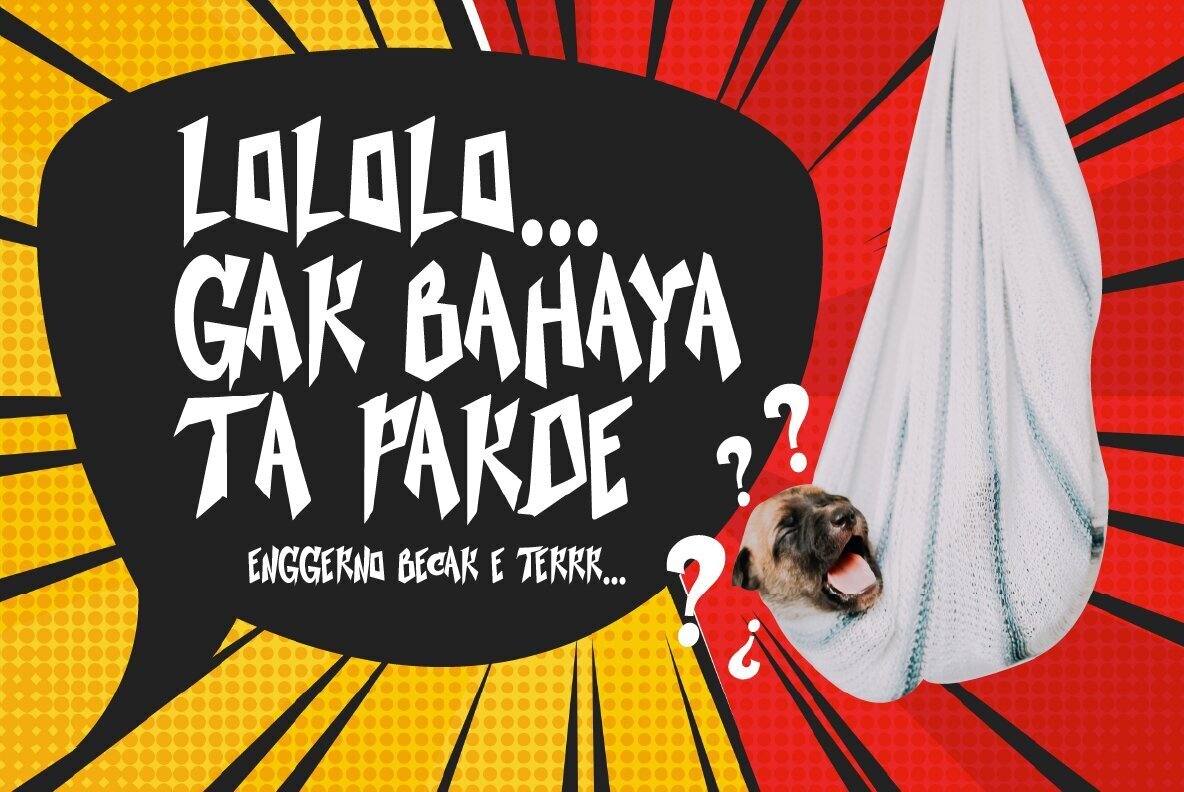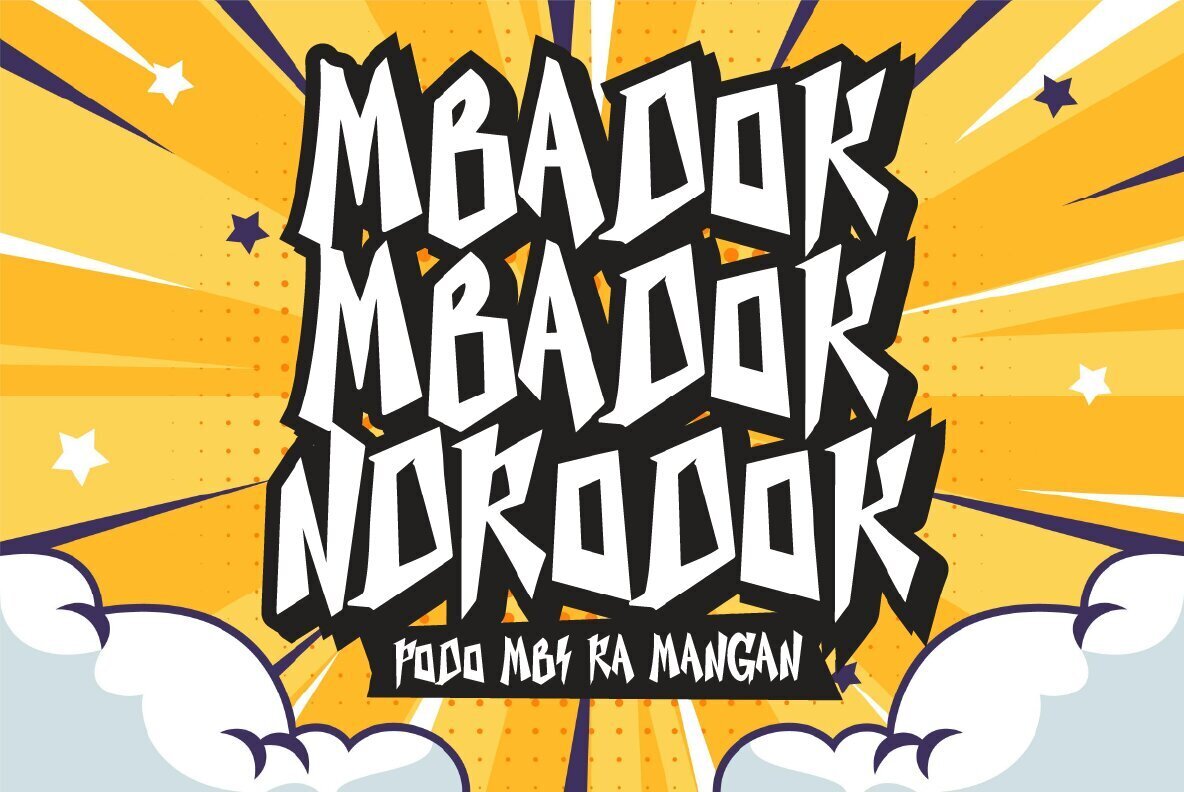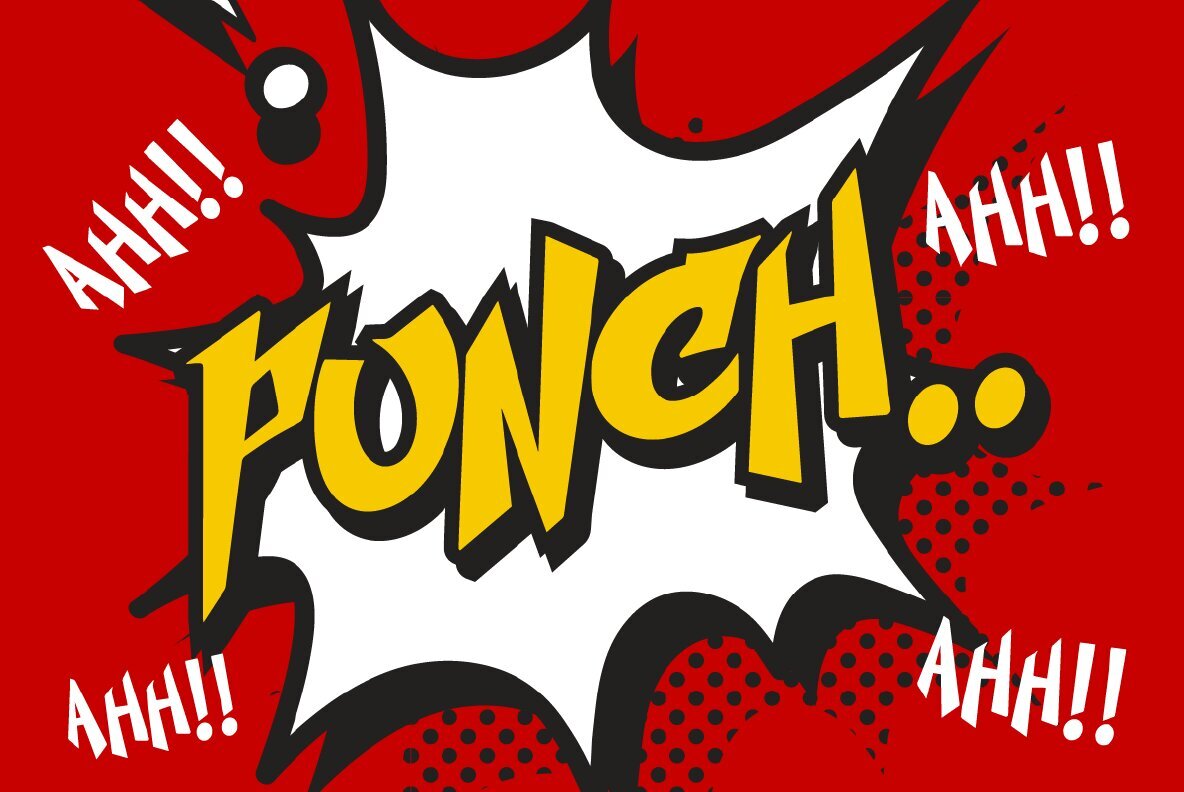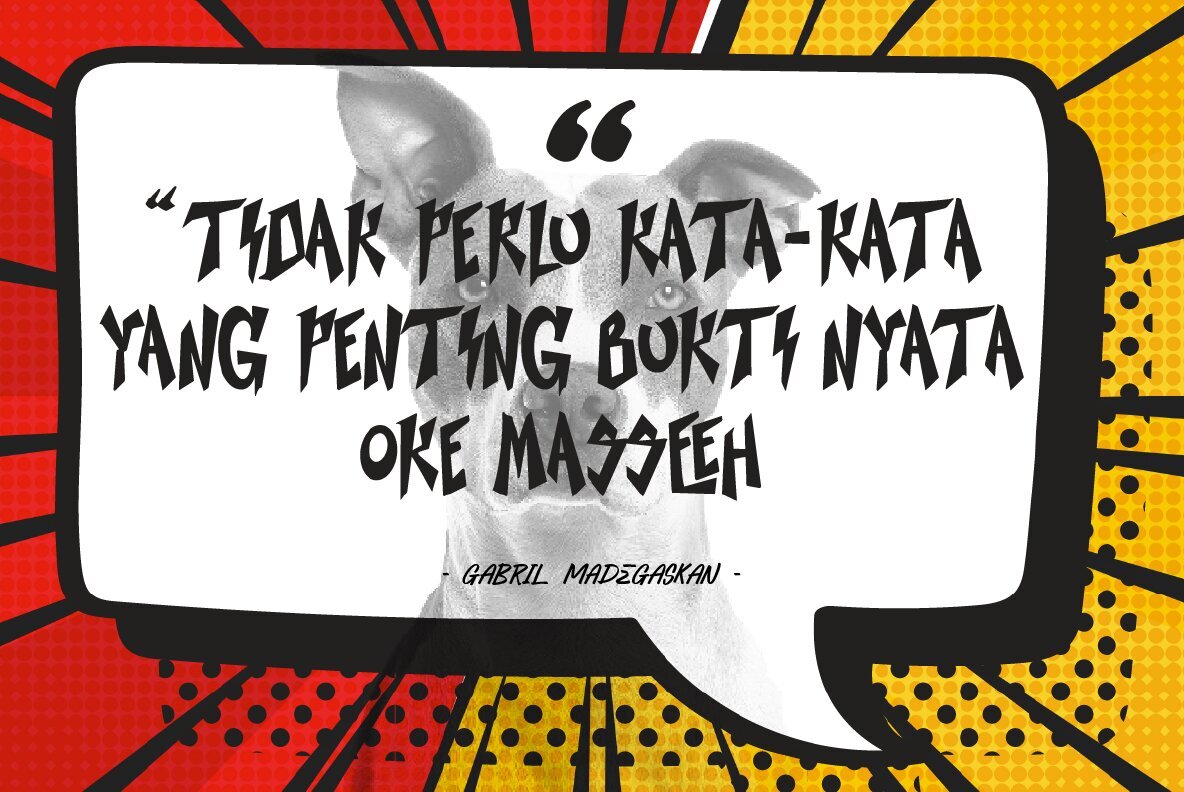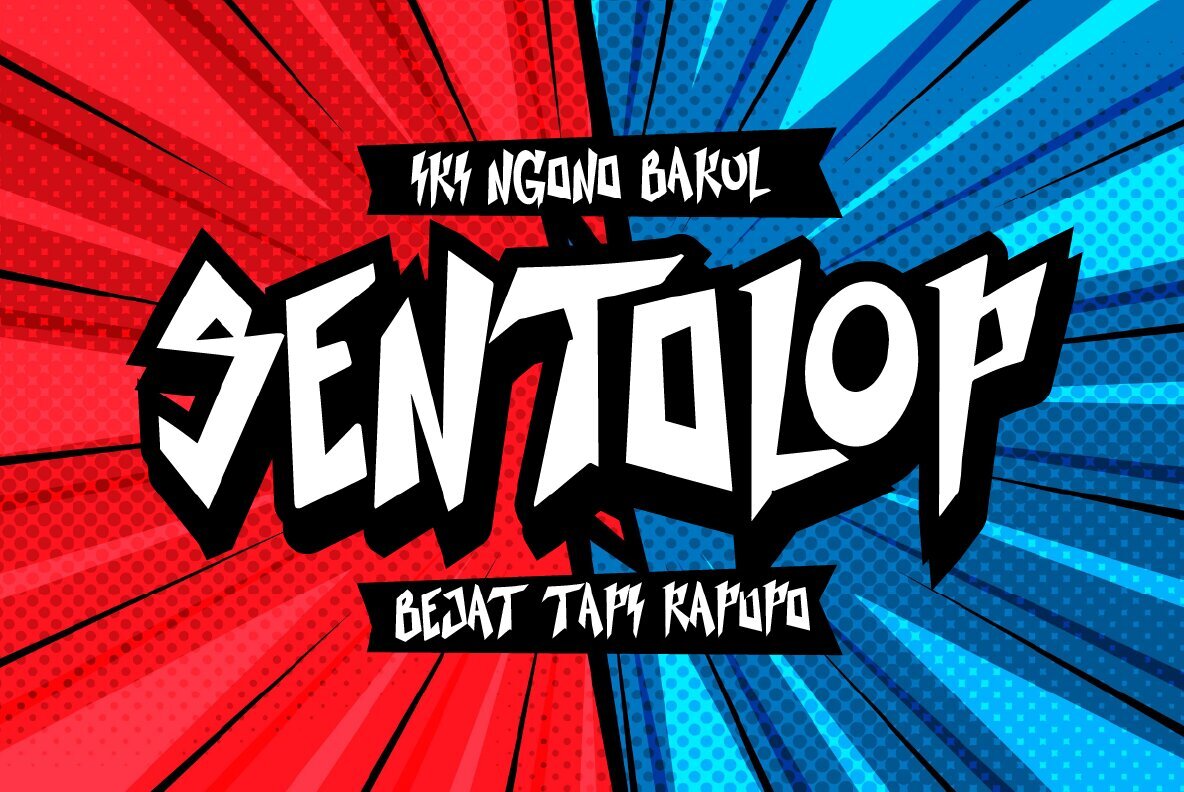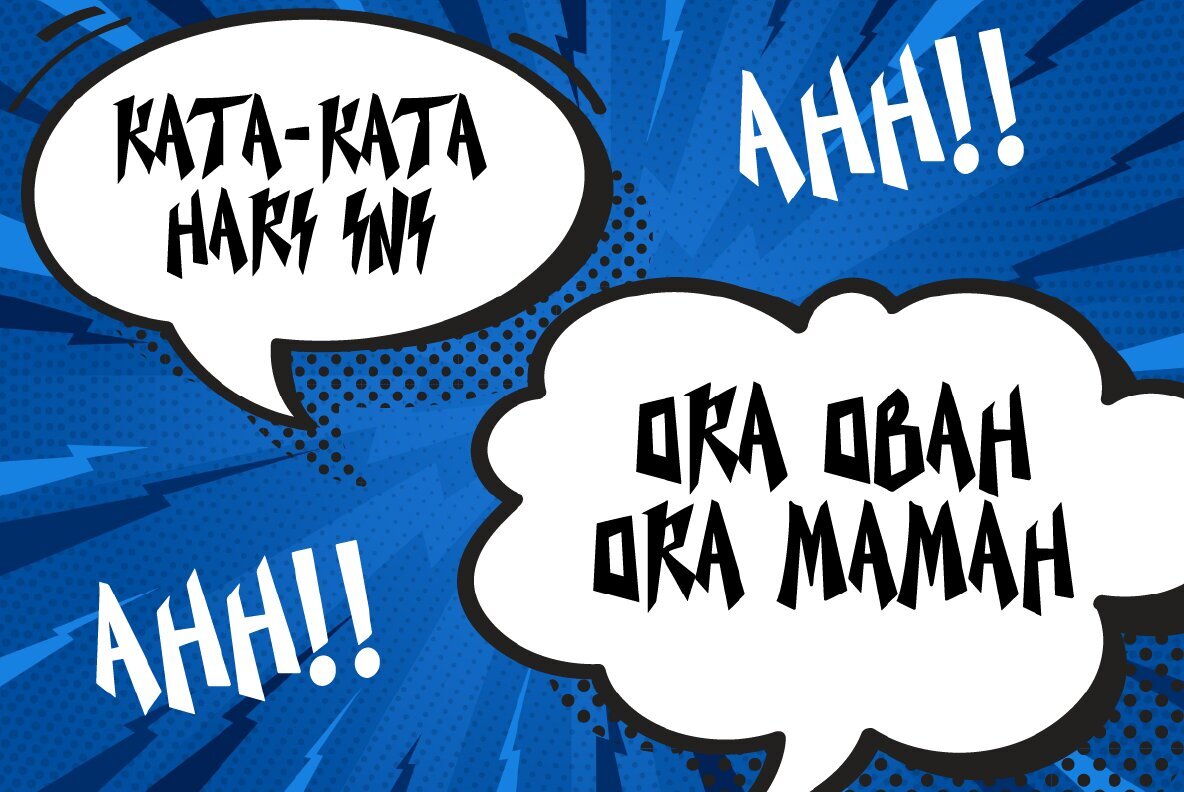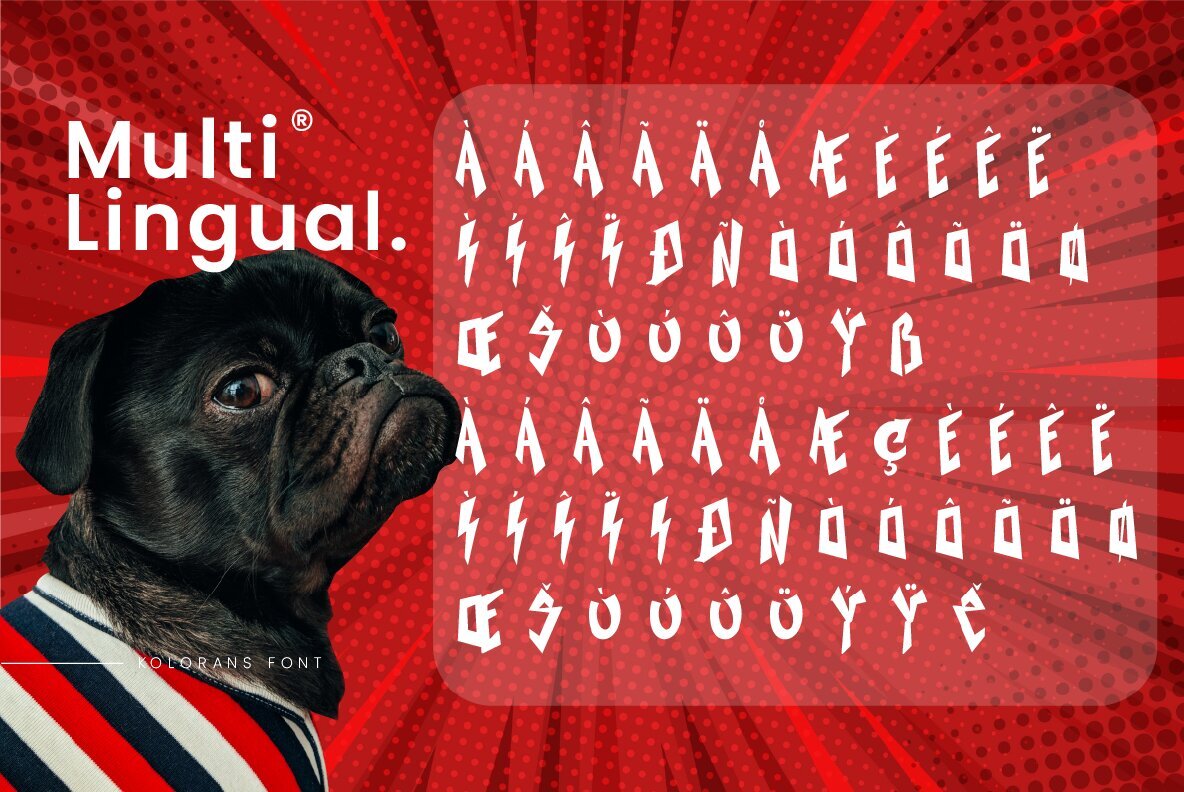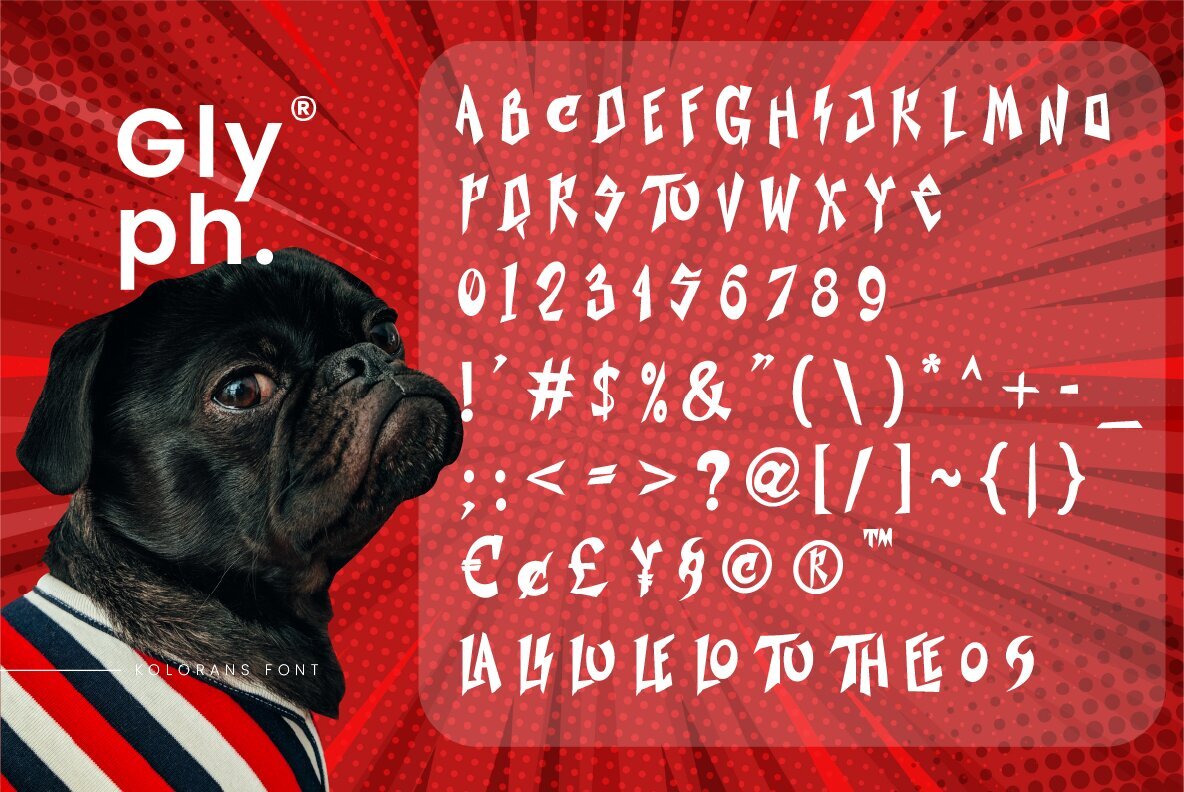
Kolorans Font
Kolorans Regular
Kolorans is a delightful comic display font designed to bring a sense of fun and humor to your projects. Its bold, exaggerated letterforms exude a cartoonish charm, making it perfect for creating a playful and approachable look. Ideal for comic books, titles, poster designs, and more, Kolorans adds a whimsical touch to any design. Please contact us if you have any questions. Enjoy crafting, and thank you for supporting us!Kolorans: A Playful Comic Display Font